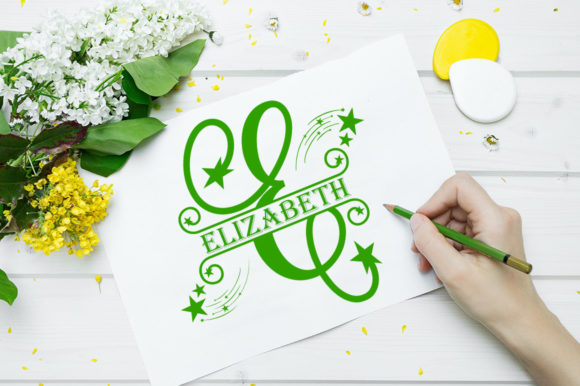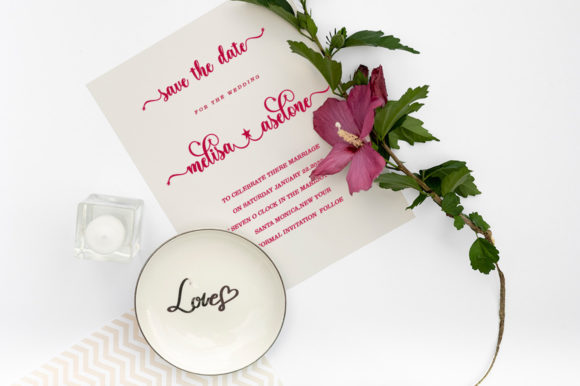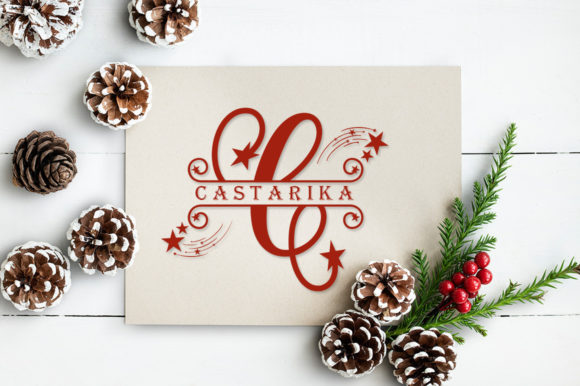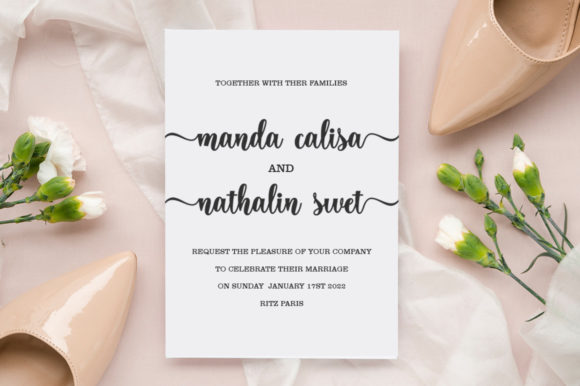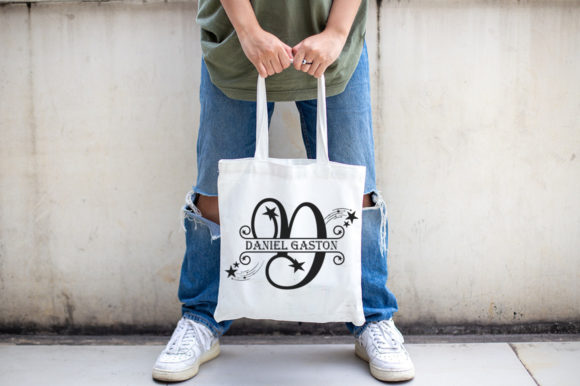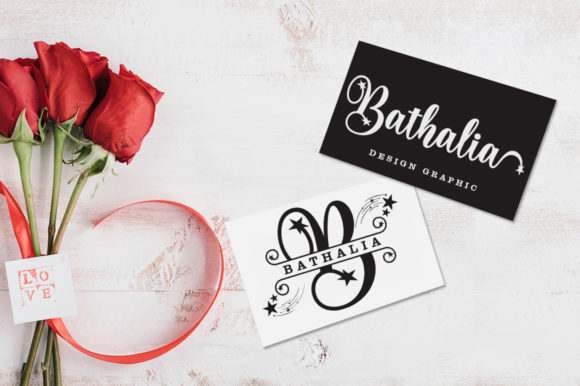
Introduction to Hello Mangolin Update Font
There’s nothing quite like the thrill of starting a new creative project. The blank canvas stares back at you, full of possibilities, and your mind begins to wander with ideas. You envision the perfect typography, the ideal font that will elevate your design to the next level. For many designers, that font is the Hello Mangolin Update Font – a romantic and sweet calligraphic font that adds a touch of luxury to any project.
With its high-quality design and transparent background, this font is a valuable resource for designers looking to take their work to the next level. And the best part? It’s PUA encoded, making it easy to access all the amazing glyphs and ligatures. Whether you’re working on a free download or a paid project, the Hello Mangolin Update Font is sure to impress.
Key Features of Hello Mangolin Update Font
- High-quality, professional font designed for creative projects, ideal for use in graphic design, digital art, and more.
- Unique, handcrafted design with a distinctive style, setting it apart from more generic fonts and making it a great choice for those seeking a one-of-a-kind look.
Honest Review: Hello Mangolin Update Font
I recently had the chance to try out the Hello Mangolin Update Font, and I’m excited to share my thoughts on this design resource.
What works well: ✨ The Hello Mangolin Update Font is a high-quality font that’s perfect for any creative project that requires a modern and sleek aesthetic. It’s available for free download, which is a definite plus. I love the transparent background option, which gives me the flexibility to use it on any design without worrying about background distractions.
- The font is highly versatile and can be used for a wide range of design projects, from logos to graphics and even web design.
- The font is available in a range of weights and styles, making it easy to find the perfect fit for your project.
What doesn’t work well: ⚠️ While the Hello Mangolin Update Font is a great resource, I did find that it can be a bit difficult to read at smaller font sizes. Additionally, the font may not be suitable for projects that require a more traditional or classic look.
Overall impression: I’m really impressed with the Hello Mangolin Update Font. It’s a high-quality design resource that’s perfect for anyone looking to add a modern touch to their creative project. With its transparent background and wide range of styles, it’s a versatile font that’s sure to please even the most discerning designers.
The Hello Mangolin Update Font is a high-quality design resource perfect for creative projects. Its transparent background makes it easy to use in various design applications. Common use cases include:
– Creating eye-catching titles and headings for presentations and designs.
– Designing marketing materials, such as flyers and brochures.
– Creating social media graphics and ads.